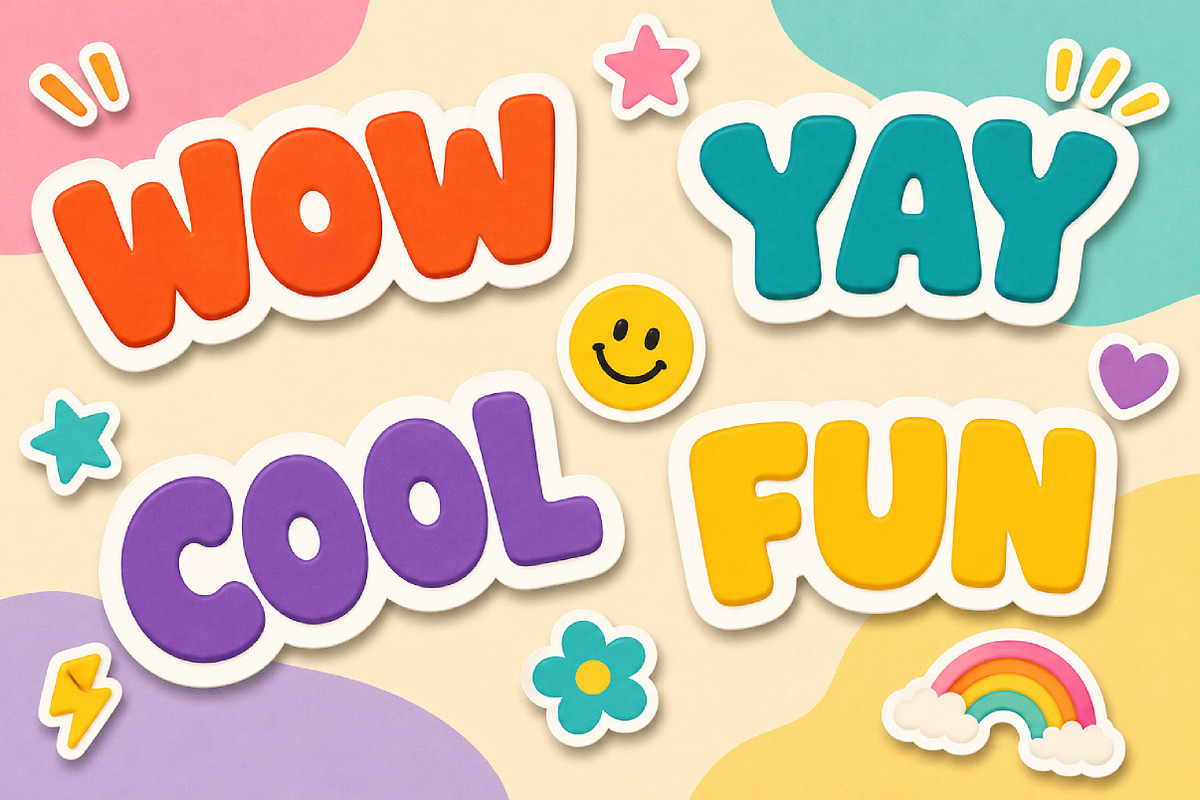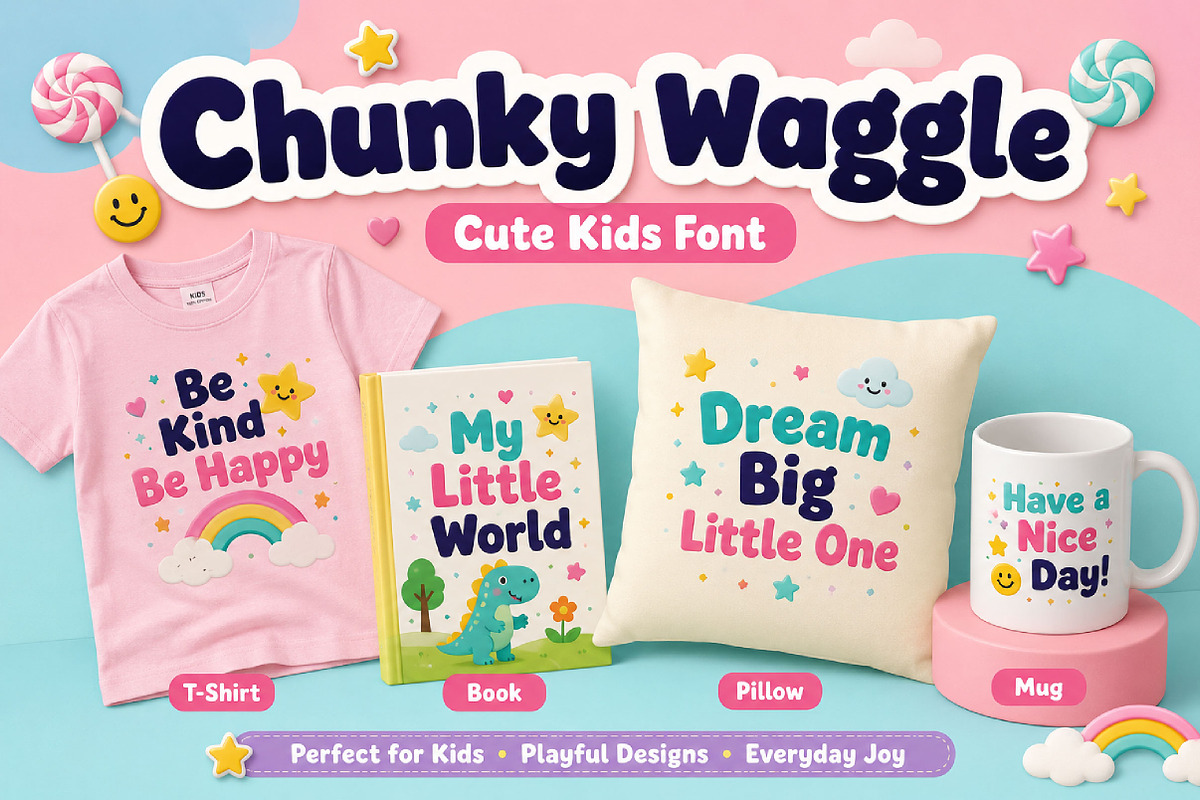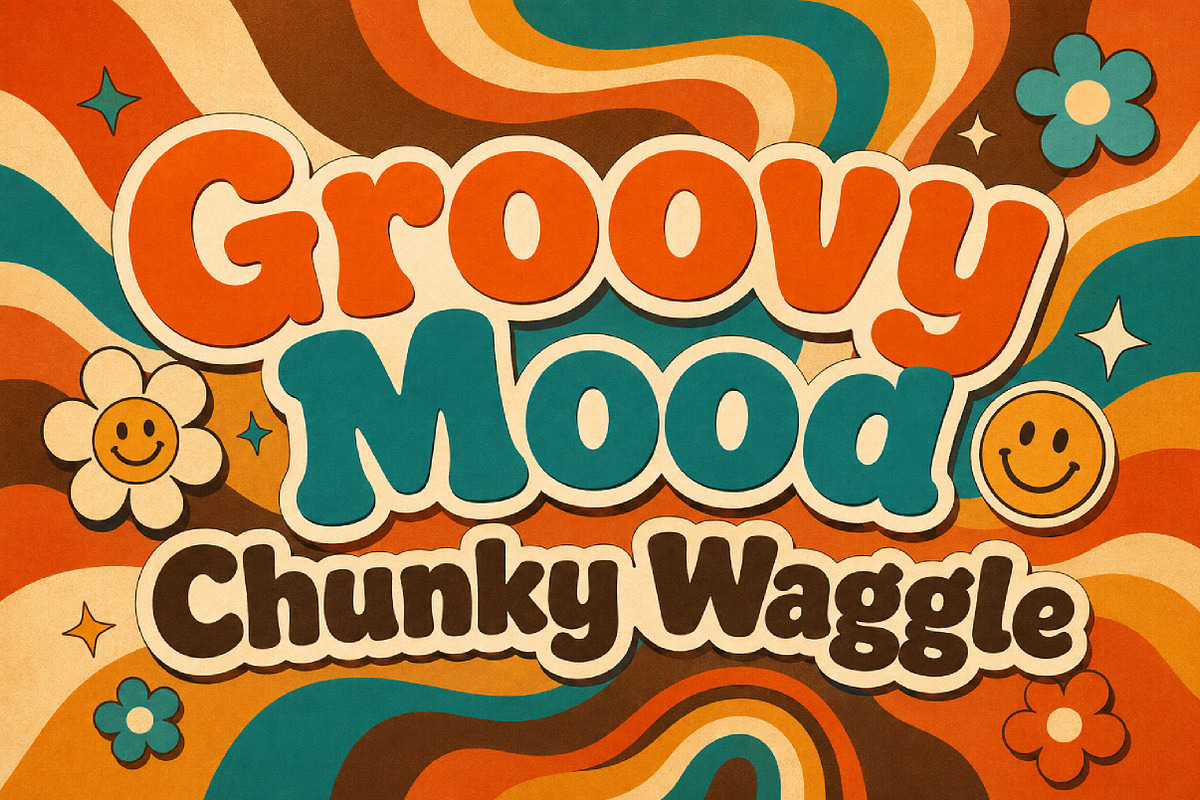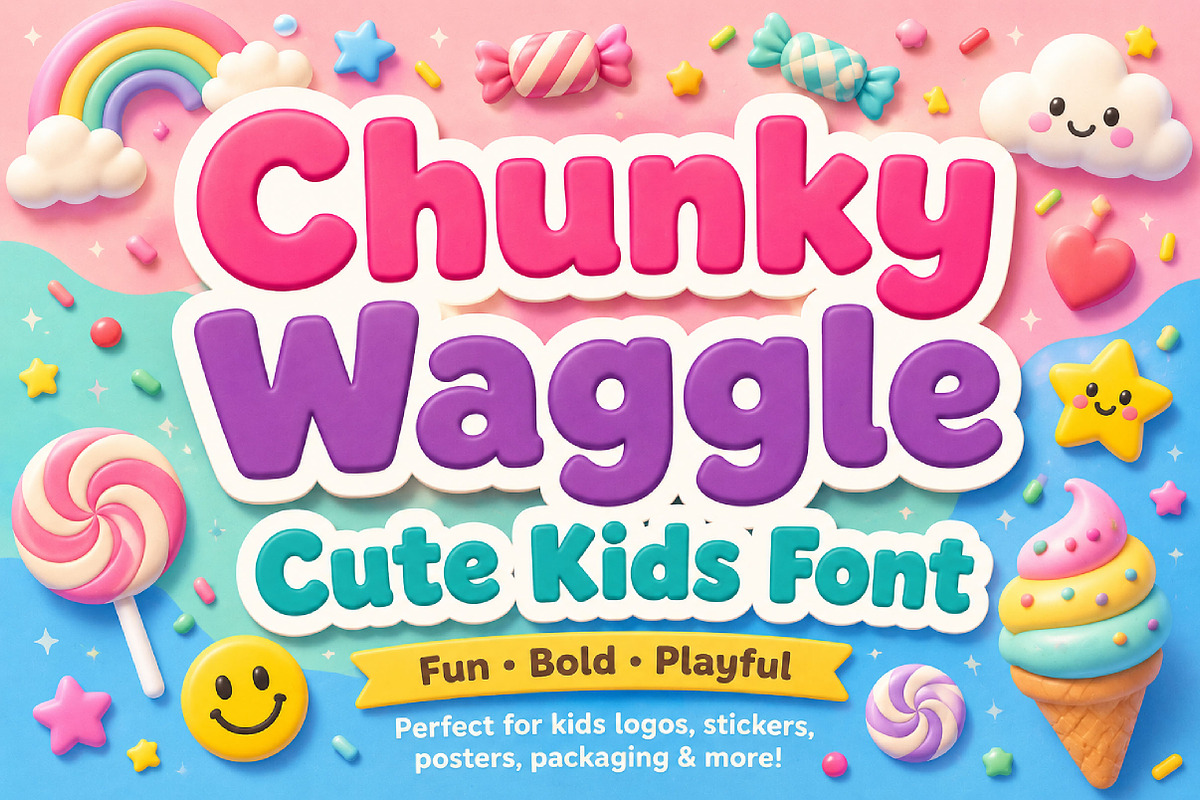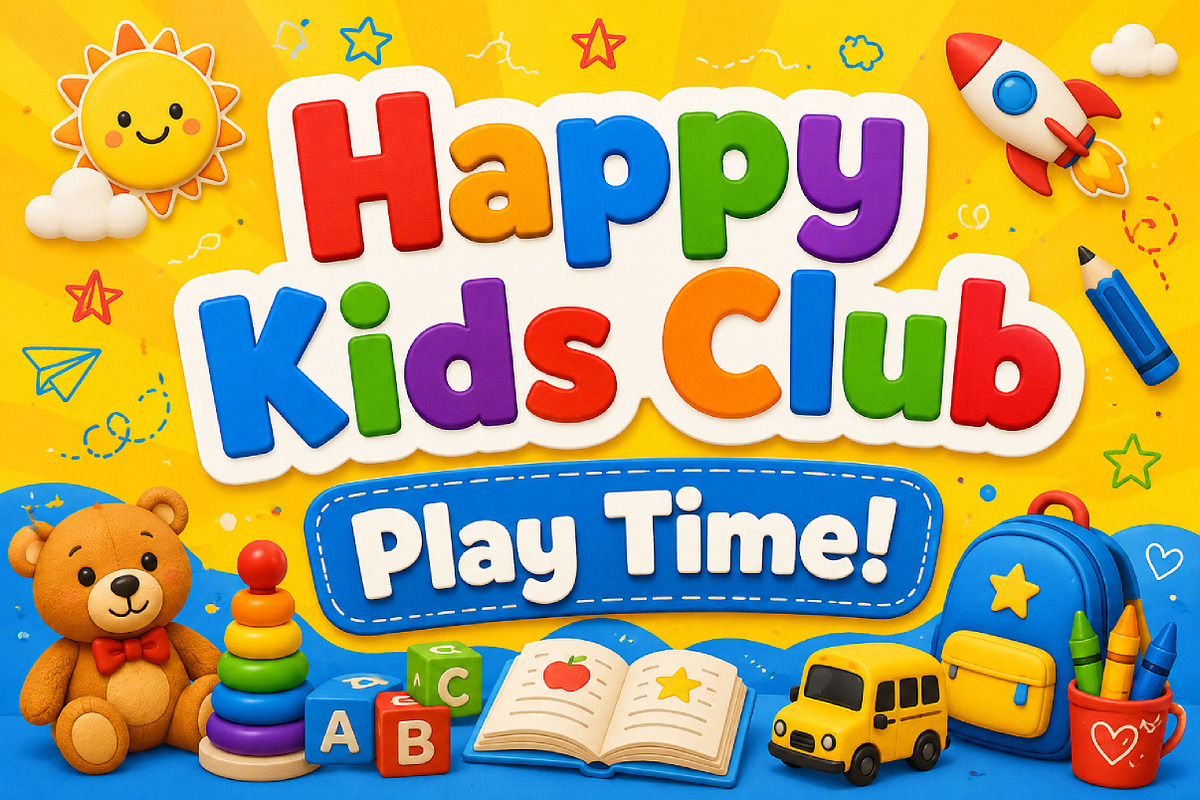
Chunky Waggle
Chunky Waggle – Bold Playful Display Font
Chunky Waggle is a bold, chunky, and playful display font perfect for kids’ designs, branding, posters, packaging, logos, and fun creative projects.
Chunky Waggle is a fun and energetic display font designed with thick letterforms, rounded edges, and a cheerful personality. Its chunky structure and playful style create a bold visual impact while keeping a friendly and approachable appearance.
Perfect for creative projects that need a fun and lively touch, Chunky Waggle works beautifully for kids’ branding, posters, packaging, stickers, logos, merchandise, and social media graphics. The playful curves and soft edges give the font a cute and modern feel that instantly attracts attention.
Whether you are creating YouTube thumbnails, party graphics, apparel designs, greeting cards, or bold display typography, Chunky Waggle helps your text stand out with confidence and charm. Its strong readability and joyful character make it suitable for both print and digital projects.
Chunky Waggle is ideal for designers who want a font that feels bold, happy, youthful, and full of personality.
Kids and children’s designs
Playful branding
Posters and headlines
Packaging design
Stickers and merchandise
Greeting cards
YouTube thumbnails
Event and party graphics
Fun logo design
Bold display typography
Uppercase letters
Lowercase letters
Bold chunky style
Rounded playful letterforms
Friendly and cheerful appearance
Highly readable display font
Perfect for fun creative projects